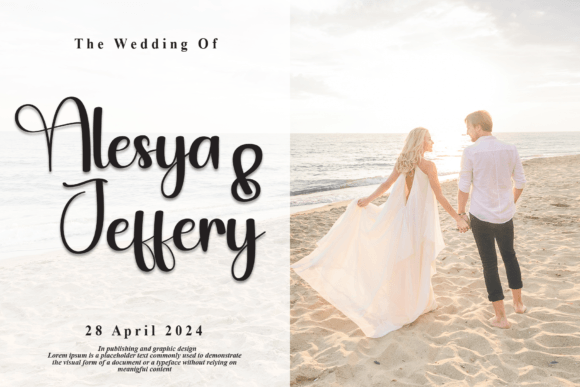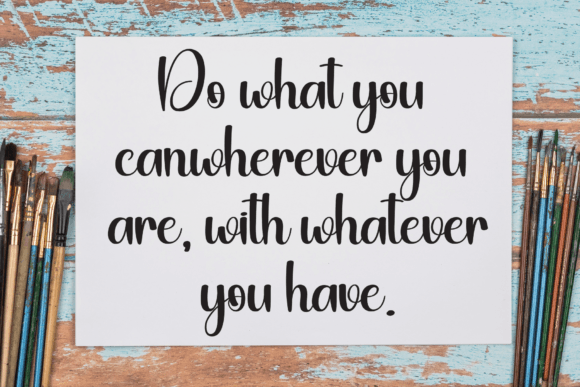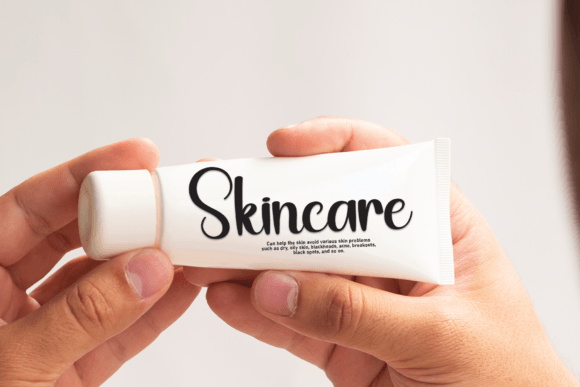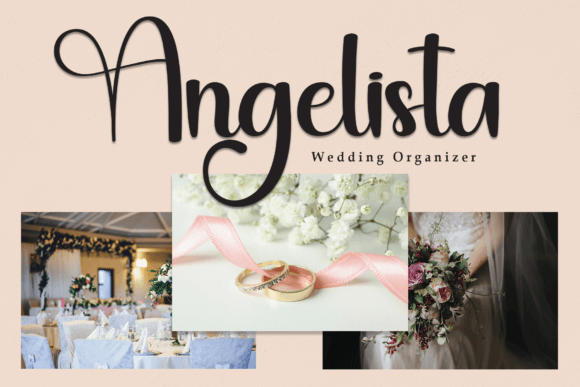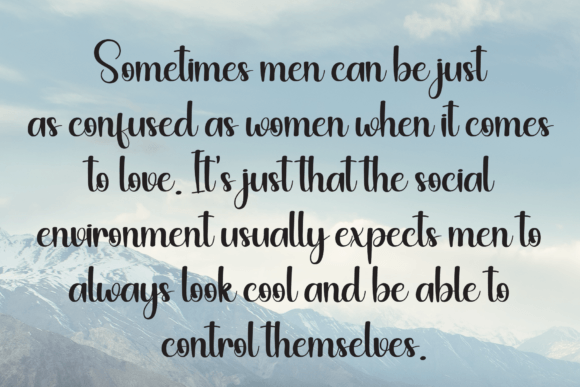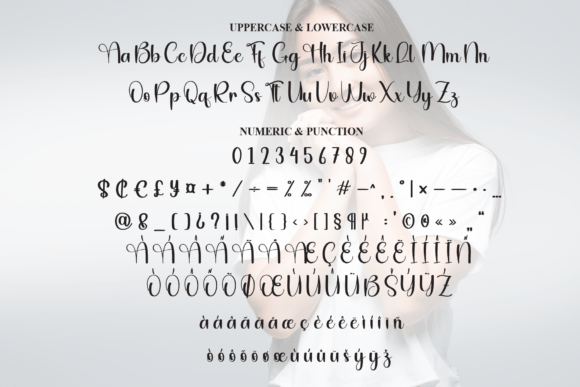
Introducing Bodycute Font: The Ultimate Choice for Whimsical Designs
Are you a designer or crafter looking for a font that can add a touch of warmth and friendliness to your projects? Look no further than Bodycute Font! This charming handwritten font is designed to bring a sense of whimsy and playfulness to your designs, making it perfect for invitations, packaging, social media graphics, and more.
The Characteristics of Bodycute Font
Bodycute Font is a beautifully crafted handwritten font that boasts smooth, flowing strokes and playful curves. Its unique characteristics make it stand out from other fonts, giving it a distinct personality that is both inviting and charming. The font’s whimsical nature makes it perfect for designs that require a touch of personality and flair.
What Makes Bodycute Font So Special?
So, what sets Bodycute Font apart from other fonts? Here are just a few reasons why designers and crafters love this font:
- Warm and Friendly: Bodycute Font exudes warmth and friendliness, making it perfect for designs that require a personal touch.
- Playful and Whimsical: The font’s smooth, flowing strokes and playful curves give it a whimsical nature that’s sure to delight.
- Versatile: Bodycute Font is perfect for a wide range of design projects, from invitations and packaging to social media graphics and more.
- Easily Readable: Despite its playful nature, Bodycute Font is still easily readable, making it perfect for designs that require a clear and concise message.
How to Use Bodycute Font in Your Designs
Bodycute Font is incredibly versatile and can be used in a wide range of design projects. Here are just a few ideas to get you started:
- Invitations: Use Bodycute Font to create beautiful and whimsical invitations for parties, weddings, and other special occasions.
- Packaging: Add a touch of personality to your product packaging with Bodycute Font.
- Social Media Graphics: Use Bodycute Font to create eye-catching social media graphics that are sure to delight your followers.
- Branding: Use Bodycute Font as part of your brand identity to add a touch of warmth and friendliness to your logo and marketing materials.
Tips for Getting the Most Out of Bodycute Font
Here are a few tips for getting the most out of Bodycute Font:
- Experiment with Colors: Bodycute Font looks great in a wide range of colors, so don’t be afraid to experiment and find the perfect hue for your design.
- Play with Pairings: Try pairing Bodycute Font with other fonts to create a unique and eye-catching combination.
- Use it Sparingly: While Bodycute Font is perfect for headlines and titles, it can also be used sparingly in body text to add a touch of personality to your design.
Bodycute Font is a charming handwritten font that is sure to bring a touch of warmth and friendliness to your designs. With its smooth, flowing strokes and playful curves, it’s perfect for invitations, packaging, social media graphics, and more. Whether you’re a designer or crafter, Bodycute Font is a great choice for anyone looking to add a touch of whimsy and personality to their projects.
Get Ready to Spread Joy and Delight with Bodycute Font!